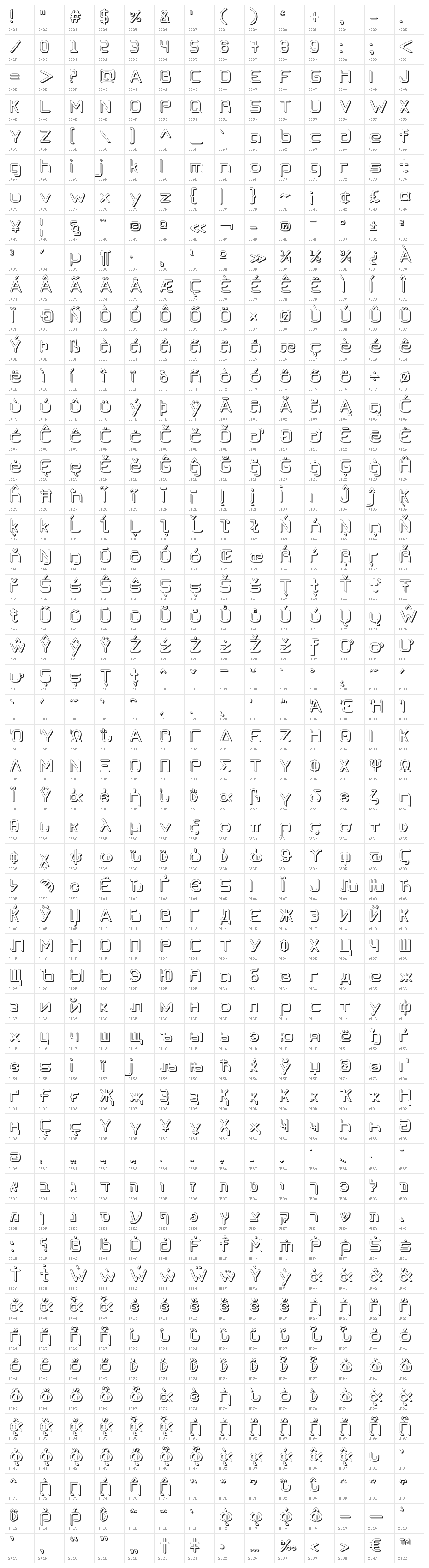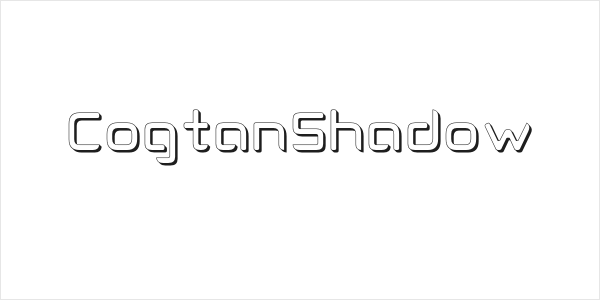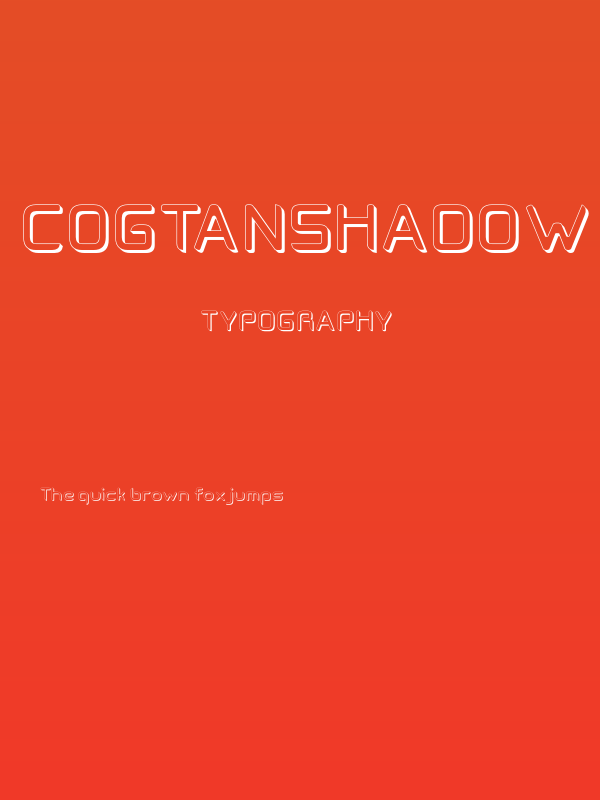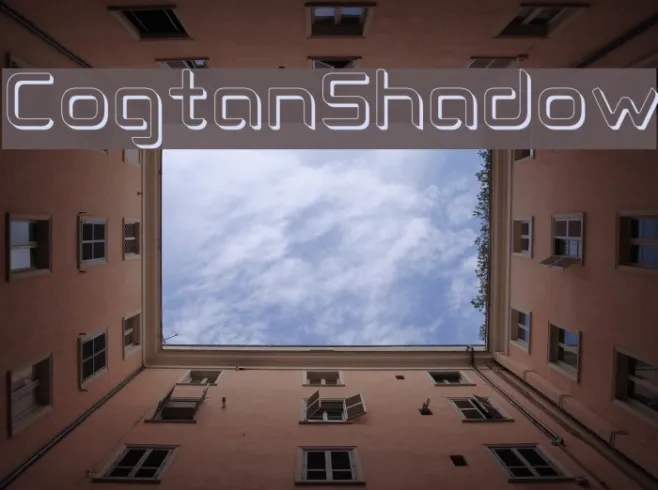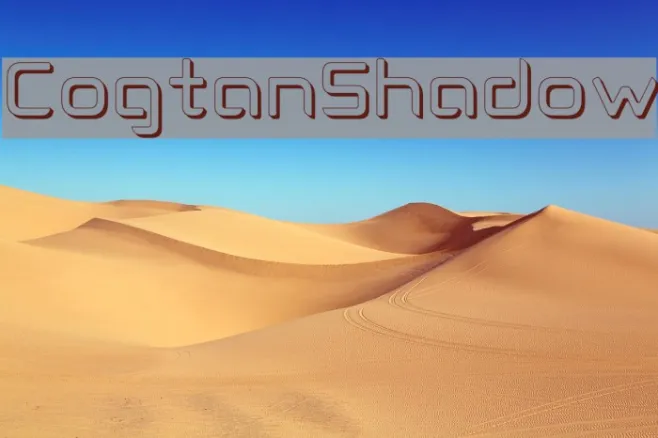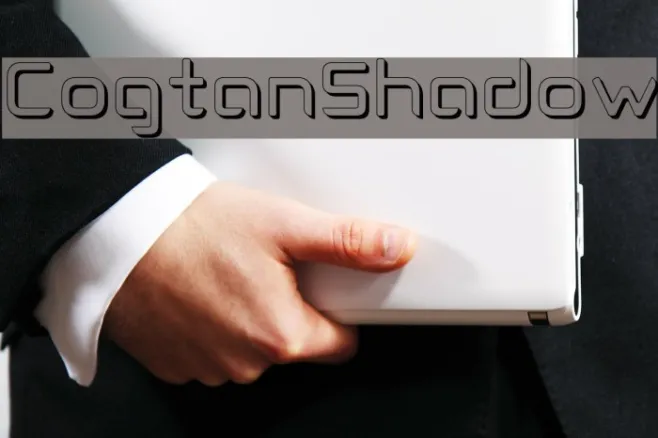
CogtanShadow Font
CogtanShadow Description
This font features a modern, futuristic design with a distinct shadow effect that gives it a three-dimensional appearance. The characters are geometric and structured, with consistent line thickness and rounded edges that soften the overall look. The uppercase and lowercase letters maintain a uniform style, while the numerals and special characters integrate seamlessly with the alphabet. The shadow effect adds depth and visual interest, making it suitable for eye-catching designs.
| Proposed Projects | Ideal for technology-themed projects, futuristic branding, posters, and digital interfaces. |